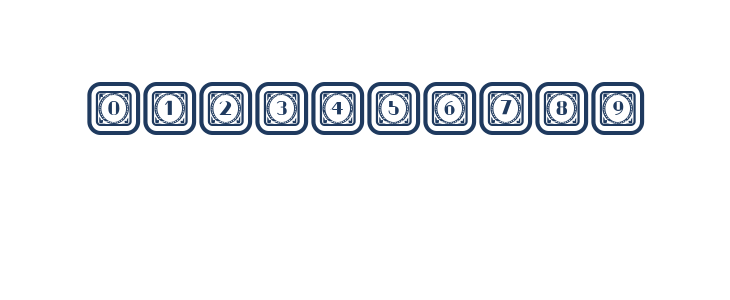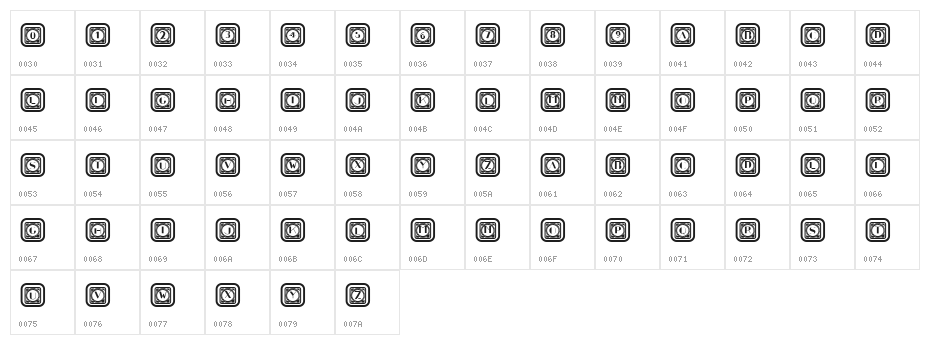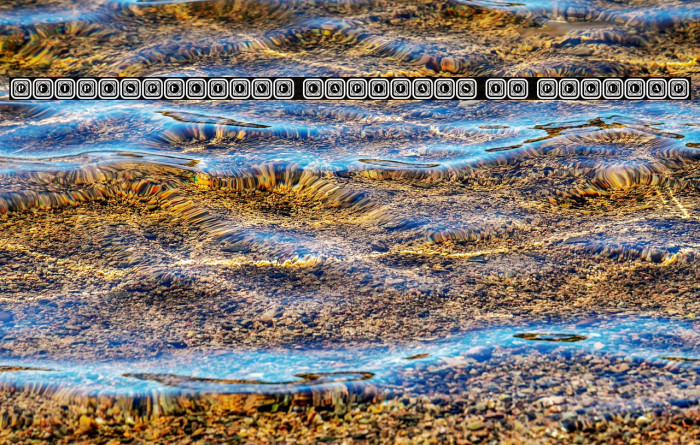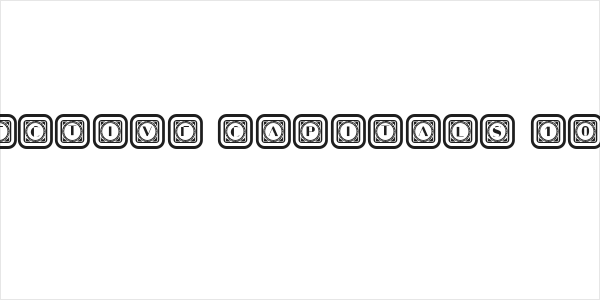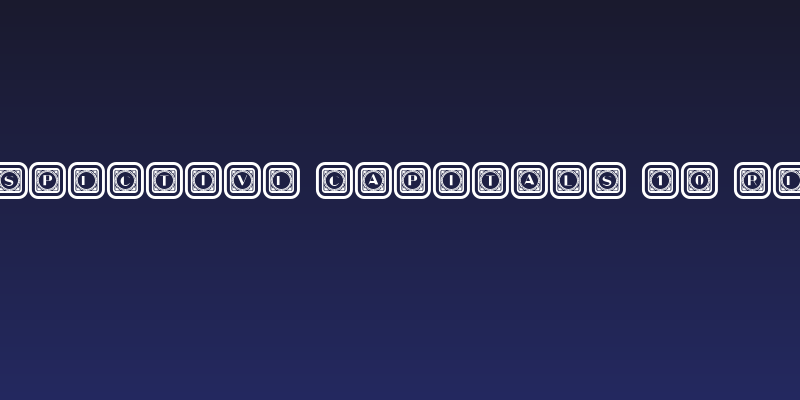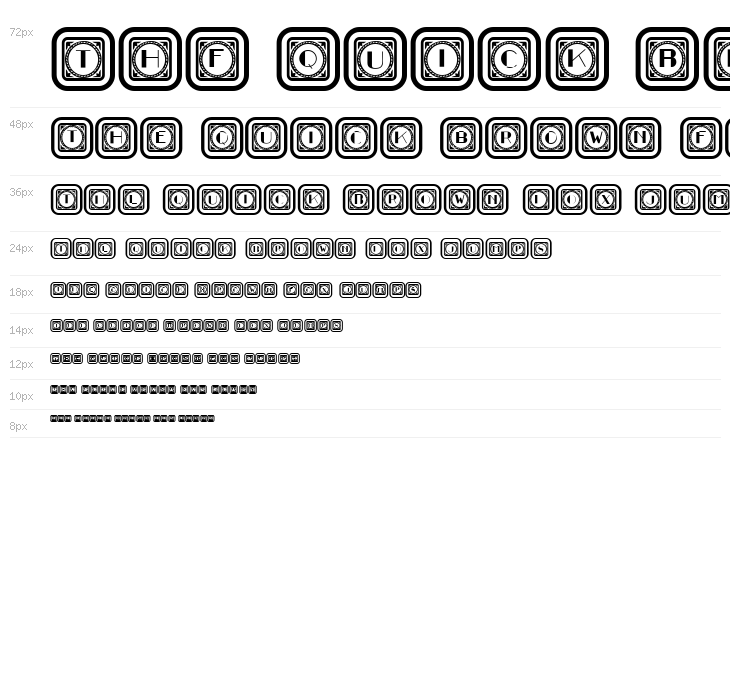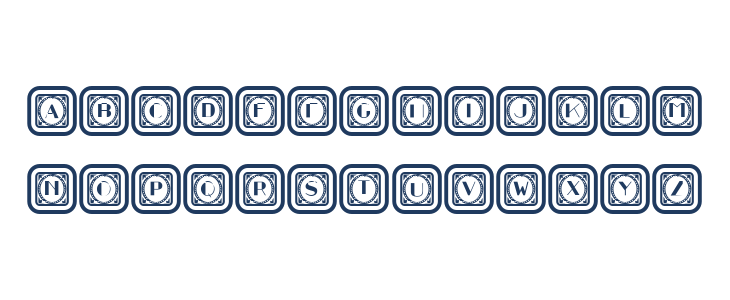
Retrospective Capitals 10 Regular Font
Retrospective Capitals 10 Regular Description
This font features a bold and decorative style with each character enclosed in a square frame. The letters and numbers are presented in a classic serif style, with intricate detailing that gives a vintage feel. The bold outlines and the enclosed design make it stand out, providing a sense of formality and elegance. The font's unique presentation is reminiscent of typewriter keys or vintage signage, making it ideal for projects that require a touch of nostalgia or a retro aesthetic.
| Use Case | Headlines, Logos, Decorative purposes |
| Proposed Projects | Ideal for retro-themed designs, vintage posters, signage, branding projects, and decorative headlines. |